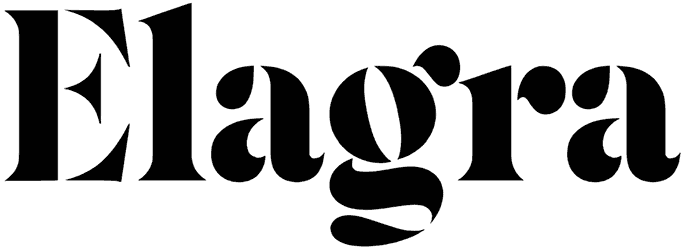
Elagra Font
Elagra font has that sharp retro display mood where every letter feels ready for a poster, a label, or a logo that refuses to blend in. The shapes bring a slightly funky personality, but they’re still controlled enough to keep your headline looking designed instead of just decorated.
Use this serif font for vintage packaging, music flyers, café branding, boutique labels, editorial titles, or social media graphics that need a stylish old-school twist. Pair Elagra font with warm oranges, cream paper, grainy shadows, and simple badge layouts, and your design starts feeling like it was pulled from a much cooler archive.